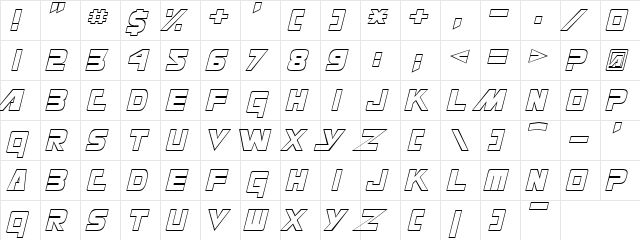
Masterforce Hollow Regular
Design Context for Masterforce Hollow Typeface
Masterforce Hollow has the bold swagger of sports branding: strong, assertive letterforms designed to dominate headlines and jerseys alike.
Built for sports team identities, athletic apparel, event posters, and high-energy promotional material.
Font Pairing: Use alongside a condensed or geometric sans for supporting copy — keep the pairing bold, functional, and free of ornament.
Pro Tip: Masterforce Hollow thrives on contrast — try it large, bold, and tight against a clean background for maximum visual impact.